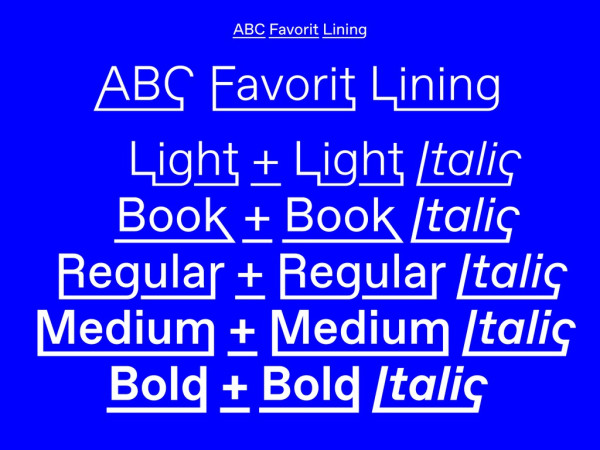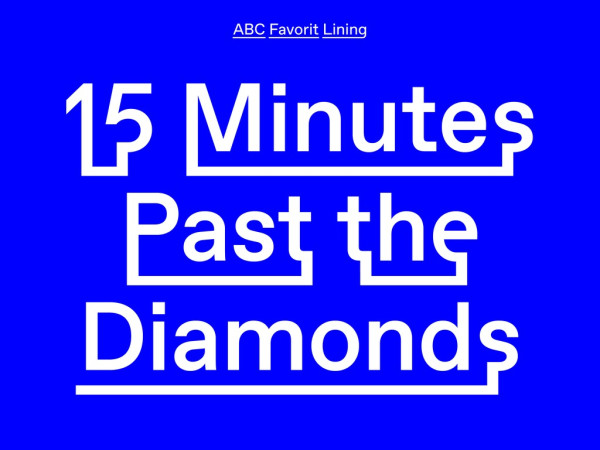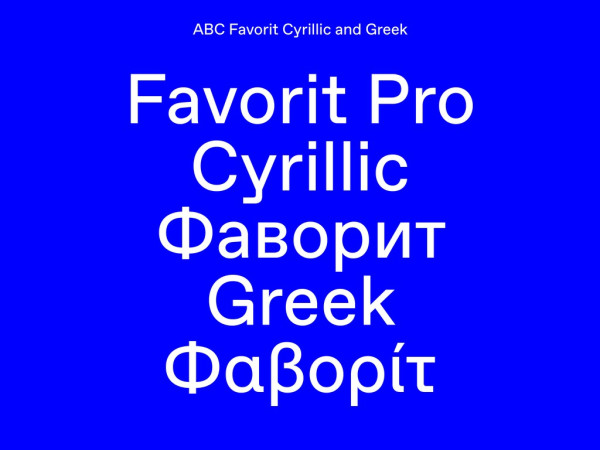
ABC Favorit Font
ABC Favorit Font is a straightforward, low-contrast grotesque that combines geometric rigidity with subtle oddities and a humorous touch. It’s available in five weights with corresponding italics, as well as a few special cuts and an underlined version, Favorit Lining. Additionally, there are the sub-families ABC Favorit Extended, ABCFavorit Expanded and the mono-spaced version ABCFavorit Mono. ABCFavorit Lining is the younger yet much smarter brother of ABC Favorit, as it has its own “smart underline” built straight into the font. With this feature, all descending characters can be merged to create unconventional letter shapes. Unleash its Connected mode, and the initial and final characters of individual words are conjoined by an extreme underline. ABC Favorit Lining is available in five weights with corresponding Italics.